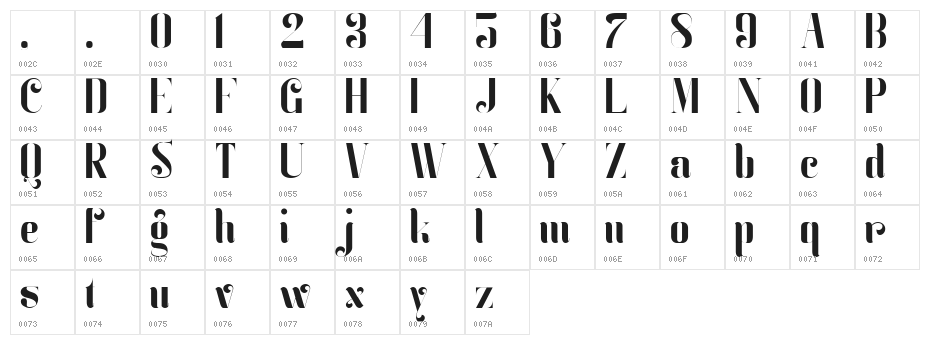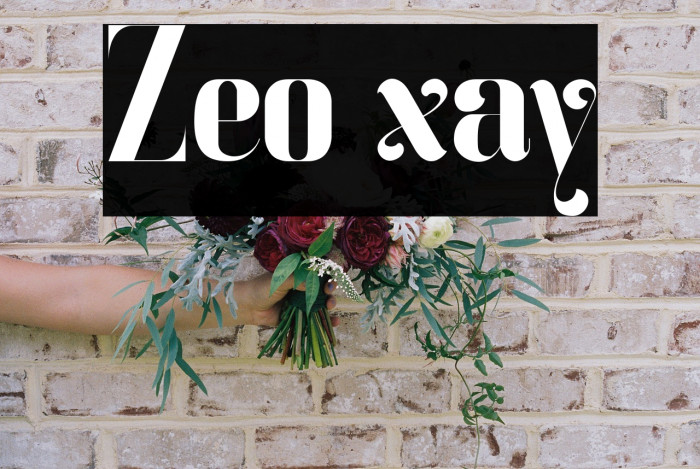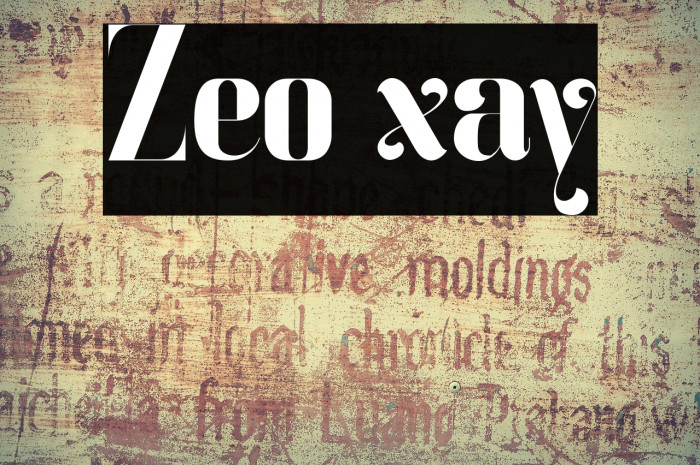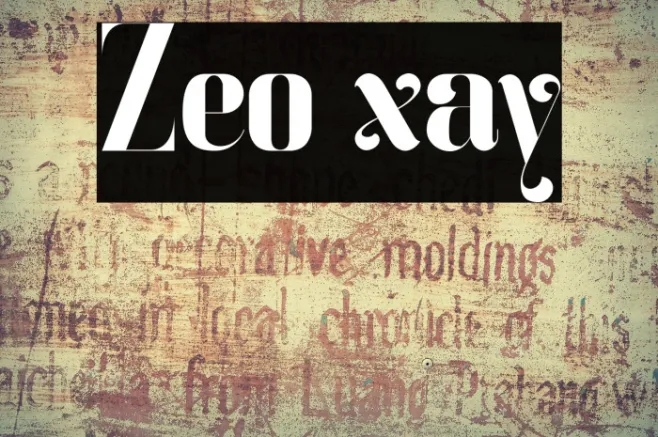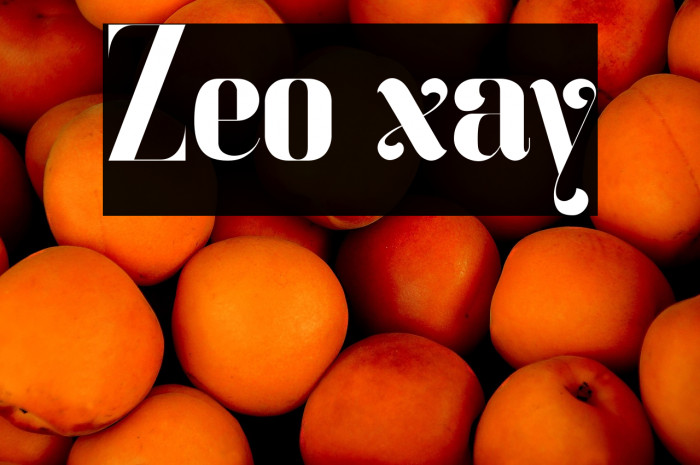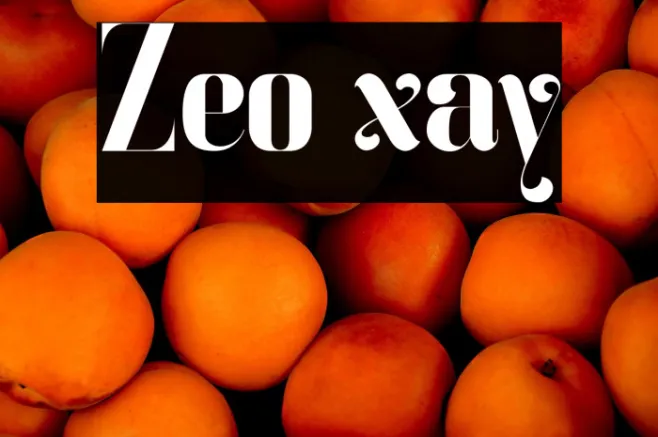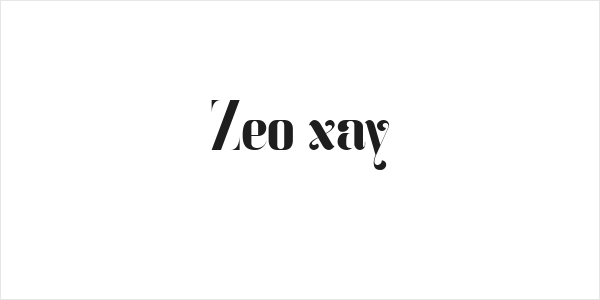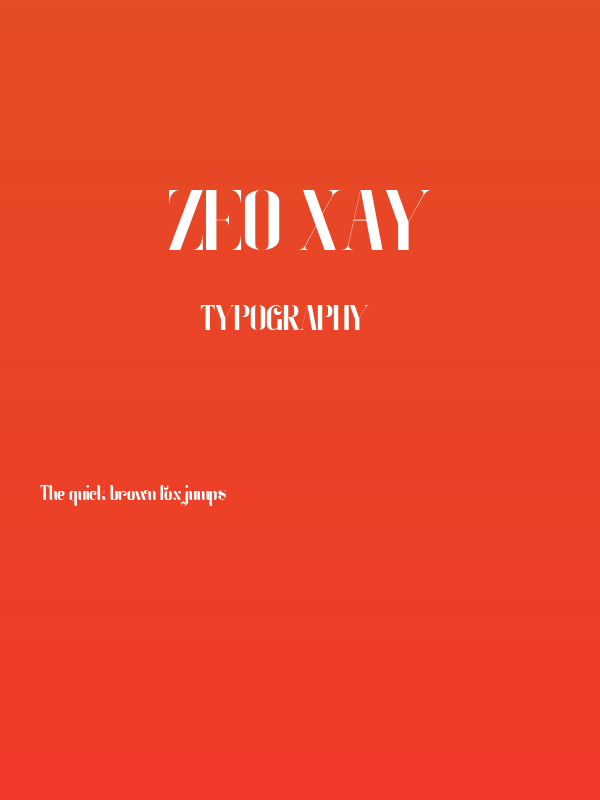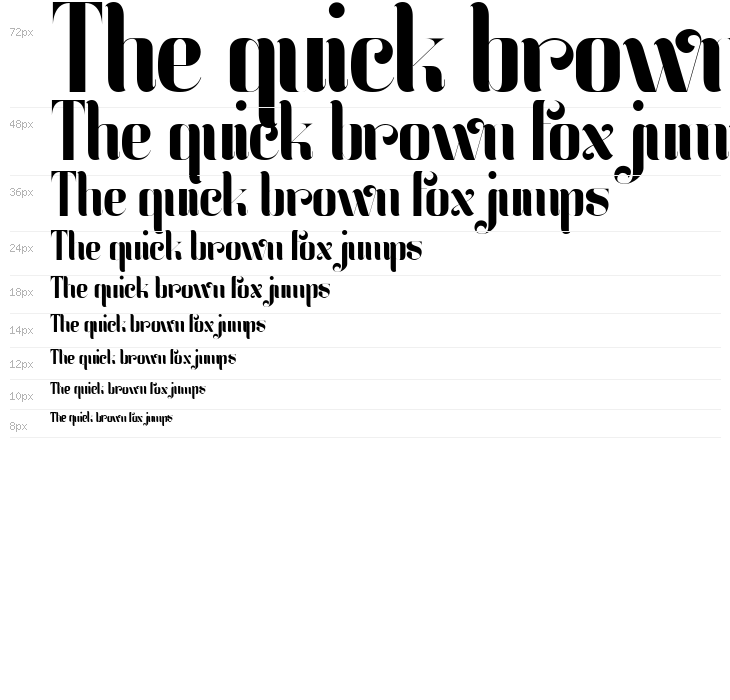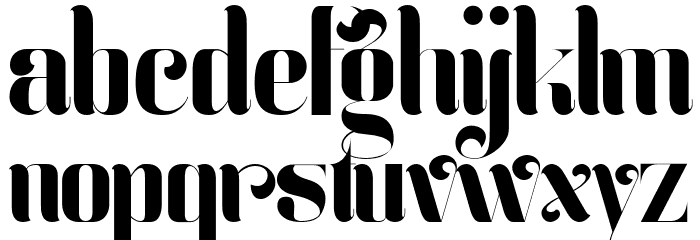
Zeo xay Font
Zeo xay Description
This font presents a striking blend of modern and vintage aesthetics, characterized by its high contrast between thick and thin strokes. The uppercase letters exhibit a bold, dramatic flair with sharp, angular serifs, while the lowercase letters maintain a more rounded and softer appearance. The numerals are equally bold, with a distinctive style that complements the overall design. The special characters are crafted with the same attention to detail, ensuring a cohesive look across all elements. This font's unique style makes it ideal for creating eye-catching headlines and logos.
| Proposed Projects | Ideal for branding, editorial design, and advertising where a bold statement is needed. |